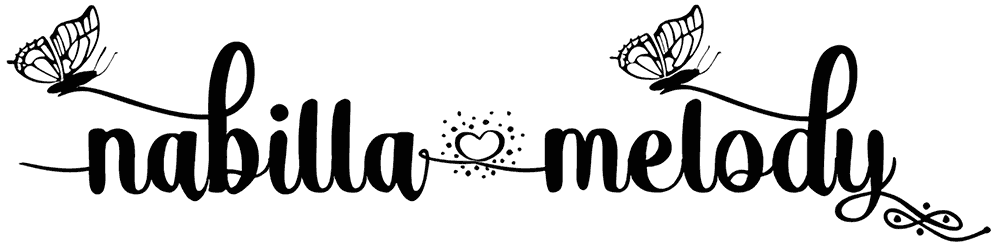
Nabilla Melody Font
Are you looking for a neat font with a minimal and clean look? Nabilla Melody offers a unique way to communicate with customers. This butterfly font is for designers who are tired of using the same thing repeatedly and are interested in creating a new perspective.
It would also be ideal for a low-risk experiment in wedding cards, greetings, clothing, and stationery. The minimal appearance of this font makes it versatile enough to depict everything despite the lack of capital letters.